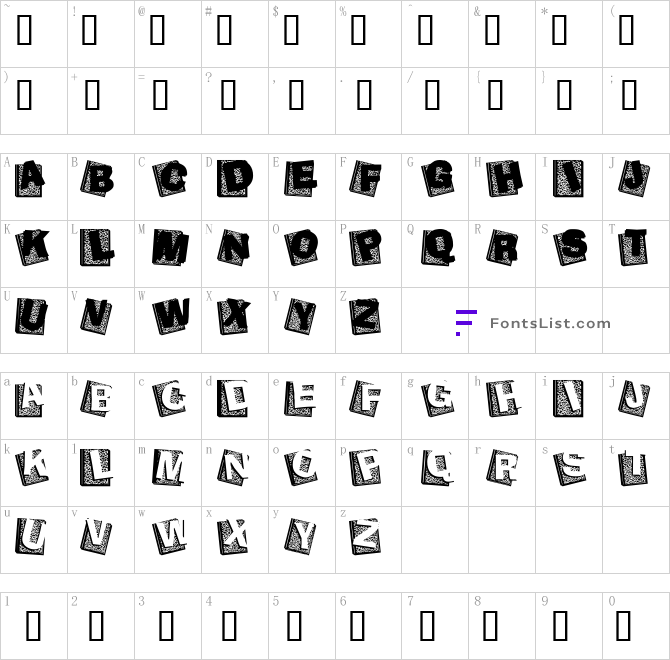
- Font Name:Agenda du Directeur
Agenda-du-Directeur.ttf is a very beautiful artistic font, Agenda-du-Directeur.ttf is widely used in the design and printing of various books and pictures,Agenda-du-Directeur.ttf has a strong visual impact,Agenda-du-Directeur.ttf is a commonly used font in newspapers, magazines and books, and is used in posters, e-commerce Poster design, store design, logo design, font design and other fields.Agenda-du-Directeur.